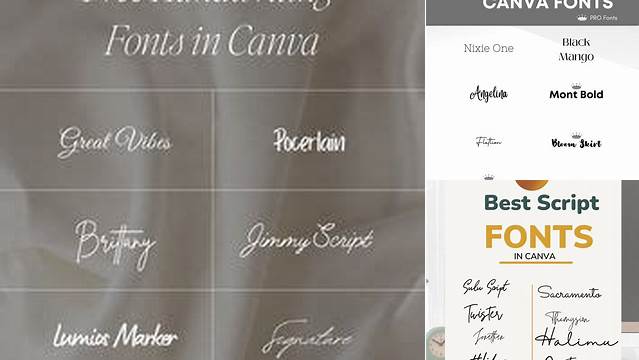
Canva Old Handwriting Fonts: Find & Use For Stunning Designs
Are you looking to add a touch of vintage charm to your designs? Do you want to create a sense of nostalgia or a classic, handwritten feel? Well, you're in luck! Canva, the user-friendly design platform, offers a fantastic selection of old handwriting fonts that can transform your projects. In this comprehensive guide, we'll dive deep into how to find, use, and master these beautiful fonts to elevate your designs.
What are Old Handwriting Fonts and Why Use Them?
Old handwriting fonts, often referred to as vintage fonts or script fonts, are typefaces designed to mimic the look of handwriting from different historical periods. These fonts can range from elegant calligraphy styles to more casual, everyday handwriting. The beauty of these fonts lies in their ability to infuse a sense of authenticity, personality, and unique style into your designs. Using an old handwriting font can immediately transport your audience to another time or evoke specific emotions.
Why use old handwriting fonts? The reasons are many! They can:
- Add Personality: Unlike the often-sterile feel of standard fonts, handwriting fonts introduce a human touch. They feel more personal and relatable.
- Create a Vintage Vibe: Perfect for projects that aim to capture a retro or nostalgic aesthetic. Think invitations, posters, or social media graphics.
- Enhance Branding: They can help establish a unique brand identity, especially for businesses that want to appear artistic, handcrafted, or classic.
- Improve Visual Appeal: When used correctly, handwriting fonts can draw the eye and make text more engaging, creating a more memorable experience for the viewer.
Canva's library includes numerous old handwriting fonts, each with its unique characteristics. Some fonts emulate classic penmanship styles, while others are inspired by old typewriters or vintage signage. The diverse collection caters to a broad range of design needs.
Finding Old Handwriting Fonts in Canva: A Step-by-Step Guide
Finding the perfect old handwriting font in Canva is a breeze. Canva's intuitive interface allows you to quickly browse and discover the best fonts for your project. Here's how to do it:
- Browse or Search for Handwriting Fonts: In the font selection panel, you can either scroll through the list of available fonts or use the search bar. To search for old handwriting fonts, type terms like 'handwritten,' 'script,' 'vintage,' or 'cursive' into the search bar. Canva will filter the font list to show fonts matching your search terms.
- Preview and Select: As you browse the fonts, Canva allows you to preview each font directly in your text box. This makes it easy to see how the font will look with your text. Click on a font to apply it to your text. Experiment with different fonts to see what best suits your design's overall aesthetic.
- Explore Font Styles: Once you've selected a font, look for variations or styles. Some handwriting fonts have different weights (e.g., light, regular, bold) or styles (e.g., italic). These variations can add further visual interest and customization to your text.
Canva's user-friendly design and extensive font library make the process of finding and using old handwriting fonts a smooth and enjoyable experience. Whether you're a seasoned designer or a beginner, you will be able to find the perfect font for your needs.
Best Practices for Using Old Handwriting Fonts in Canva
While old handwriting fonts can dramatically enhance your designs, it’s important to use them wisely. Improper usage can make your text difficult to read or detract from your overall design. Here are some essential best practices to ensure your use of these fonts is both effective and aesthetically pleasing:
- Readability is Key: The primary goal of any font choice is to make your text easily readable. Many old handwriting fonts, particularly those with intricate styles, can be challenging to read at smaller sizes. Always prioritize readability, especially for body text. Reserve elaborate fonts for headings, titles, or short phrases where readability is less crucial. Consider using a simpler, more legible font for the main content of your design to balance the script font.
- Choose the Right Font for Your Project: Not all old handwriting fonts are created equal. Some are elegant and refined, while others are more casual and playful. The font you choose should complement the overall tone and style of your project. For example, a wedding invitation might benefit from a graceful script font, while a children's book might suit a more whimsical, handwritten style. Always consider the audience, the message, and the purpose of your design.
- Pair Fonts Thoughtfully: Mixing different fonts can add visual interest, but it's crucial to do it with intention. When pairing an old handwriting font with another font, consider the contrast and harmony between the two. Typically, it is best to pair a script font with a clean, sans-serif font to ensure that the design is still readable. Avoid pairing two highly decorative fonts together, as this can create a cluttered and confusing look. Make sure your fonts do not clash with each other, and maintain a good balance.
- Maintain Adequate Spacing: Kerning (the space between individual letters) and leading (the space between lines of text) can significantly impact the readability of your handwriting fonts. Many script fonts have tight kerning, which can make them appear crowded. In Canva, adjust the kerning and leading to give your text enough breathing room. This will make your text easier on the eyes and enhance the overall visual appeal.
- Use Fonts Sparingly: While old handwriting fonts are attractive, overuse can make your design look cluttered and overwhelming. Use them strategically, such as for headings, quotes, or a few select words to draw attention. For body text, stick to a more straightforward and legible font. Less is often more when it comes to using script fonts. This will help your font choices stand out and make a more considerable impact.
- Consider Font Size: The size of your font impacts its readability. Ensure that your handwritten font is large enough to be easily read, especially if it has a lot of intricate detail. Always preview your design at different sizes to make sure the text remains clear and visible on various devices and screens. Adjust the size of your font as necessary to ensure your text is easily read.
- Color Considerations: The color of your font can affect its readability. High-contrast colors (e.g., dark text on a light background or vice versa) usually make text easier to read. Avoid using colors that are similar to your background, as this can make the text difficult to distinguish. Make sure your font's color complements your overall design's color scheme.
Following these best practices will ensure that your use of old handwriting fonts in Canva elevates your designs, making them visually appealing and user-friendly.
Customizing Old Handwriting Fonts in Canva
Canva offers various customization options that enable you to tailor your old handwriting fonts to your specific needs. These options can help you create truly unique and impactful designs. Let's go over some of the key customization features:
- Font Size and Weight: Canva allows you to easily adjust the font size and weight of your chosen old handwriting font. Experiment with different sizes to ensure readability and visual balance within your design. You can also change the weight (e.g., light, regular, bold) of the font to add emphasis or create contrast. Making slight adjustments can make your designs look great.
- Color Selection: The color palette is fundamental to design, and Canva gives you full control over your font's color. Change the font color to match your brand's colors or the overall aesthetic of your design. Canva provides a color picker tool, so you can select a color from a spectrum or input a specific hex code for precise control. Make sure your text's color has enough contrast with the background to maintain readability.
- Spacing Adjustments: Adjust the kerning (letter spacing) and line spacing (leading) of your text. This is particularly useful for handwriting fonts, which can sometimes appear crowded. Adjusting these spacing settings can improve readability and visual appeal. Increase or decrease the spacing between letters to give your text more room to breathe.
- Text Effects: Canva offers various text effects that can be applied to your old handwriting fonts to add visual interest. You can add shadows, outlines, and other effects to give your text depth, emphasis, or a unique look. Be careful not to overdo these effects, as they can sometimes make the text harder to read.
- Curvature: Canva lets you curve text, which can add a playful or creative touch to your design. Experiment with curving your old handwriting fonts to fit them within a circular design or create a visually interesting layout. This is often useful for logos or graphics where you want the text to follow a particular shape.
- Alignment and Positioning: Properly aligning and positioning your text is critical for creating a balanced and professional-looking design. Canva offers alignment tools (left, right, center) and positioning options that allow you to place your text exactly where you want it. Make sure your text is aligned with other elements in your design to create a cohesive look.
By using Canva's font customization features, you can enhance the appearance and effectiveness of your old handwriting fonts. This ensures they match your vision and create a lasting impression.
Canva Pro and Advanced Font Options
While Canva offers a wide selection of fonts in its free version, Canva Pro users unlock even more advanced features and a vast library of fonts. This makes the design process smoother and more versatile. Here's what Canva Pro offers in terms of old handwriting fonts and customization:
- Expanded Font Library: Canva Pro users have access to an extensive library of fonts, including many premium and unique old handwriting fonts not available in the free version. This significantly broadens your creative options and allows you to discover fonts that precisely match your design needs.
- Brand Kit: The Brand Kit is a powerful feature that allows you to save your brand's fonts, colors, and logos. This ensures that all your designs maintain a consistent visual identity. For those working on branding projects, this functionality is invaluable, as it streamlines the design process.
- Font Uploads: Canva Pro allows you to upload your custom fonts. If you have specific handwriting fonts you want to use that aren't available in Canva's library, you can upload them directly. This opens up a world of customization, especially for businesses that have their proprietary fonts.
- Team Collaboration: If you work in a team, Canva Pro lets you collaborate on designs seamlessly. You can share your fonts and brand assets with your team members, which promotes consistency and efficiency in all your design work.
- Advanced Design Tools: Canva Pro provides access to advanced design tools and features, like the Background Remover and Magic Resize, which improve the overall design process. These features can speed up your workflow and offer even more control over the final product.
If you are regularly designing and looking for more advanced features and a greater selection of fonts, upgrading to Canva Pro is highly recommended. It is a significant investment to enhance your design capabilities and create professional-looking designs.
Troubleshooting Common Font Issues in Canva
Even with a user-friendly platform like Canva, you might occasionally run into issues when working with old handwriting fonts. Here's how to troubleshoot some common problems:
- Font Not Appearing: If a font you expect to see isn't listed, try these steps:
- Refresh your browser: Sometimes, a simple refresh can resolve display issues.
- Check your internet connection: Make sure you have a stable internet connection, as Canva requires a connection to load fonts.
- Ensure the font is supported: Some fonts may not be supported in Canva. If you're using a custom font, double-check its compatibility.
- Clear cache and cookies: This can solve issues caused by corrupted files or old data.
- Font Display Problems: If the font is displaying incorrectly or appears distorted:
- Try a different browser: Sometimes, font rendering issues are browser-specific.
- Update your browser: Using the latest version of your browser ensures optimal performance and compatibility.
- Check your device's font settings: Make sure your device settings aren't interfering with the font's display.
- Readability Issues: If your old handwriting font is hard to read:
- Increase font size: Make the font larger to improve readability.
- Adjust spacing: Adjust kerning and leading to create more space between letters and lines.
- Use a legible background: Ensure the background has enough contrast with the font color.
- Choose a different font: If the font is still unreadable, try another handwriting font.
- Custom Font Upload Issues: If you're having trouble uploading a custom font:
- Ensure the font is a supported file type: Canva supports certain font file types, such as TrueType (.ttf), OpenType (.otf), and sometimes Web Open Font Format (.woff). Double-check your font file's format.
- Verify the font's licensing: Make sure you have the right to use the font for your intended purpose, especially if you plan to use it commercially.
- Try re-uploading: Sometimes, a simple re-upload can resolve errors. Delete the original upload and try again.
- Font Licensing: Always be aware of the license associated with the fonts you use. Most fonts have usage limitations, and you must comply with these to avoid copyright issues.
These troubleshooting tips should help you overcome most font-related issues you may encounter in Canva. If the problems persist, Canva's support team is always available to help with more complex problems.
Conclusion: Unleashing Your Creativity with Old Handwriting Fonts in Canva
In conclusion, old handwriting fonts in Canva offer a creative and versatile way to enhance your designs and add a unique touch. With a wide range of fonts available, the platform offers an extensive, user-friendly experience. By following the tips and guidelines outlined in this guide, you can master using these fonts and transform your projects with vintage charm and aesthetic appeal.
Whether you're designing a social media post, creating invitations, or working on a branding project, Canva's old handwriting fonts provide the tools you need to stand out. With careful font selection, thoughtful pairing, and strategic customization, you can create designs that are visually appealing, memorable, and effective. Experiment with different fonts, explore Canva's customization features, and have fun bringing your design visions to life.
So, go forth and explore the world of old handwriting fonts in Canva! Your designs are about to get a whole lot more stylish, personalized, and memorable. Embrace the power of vintage aesthetics and let your creativity flow!